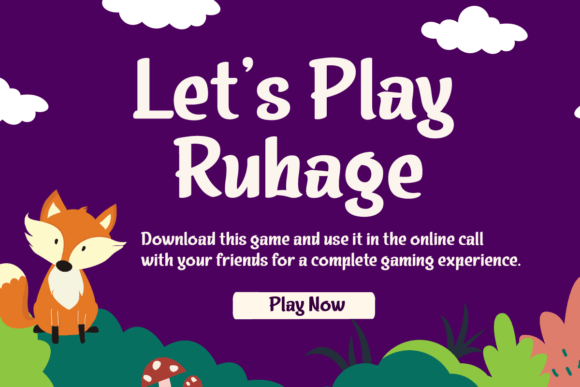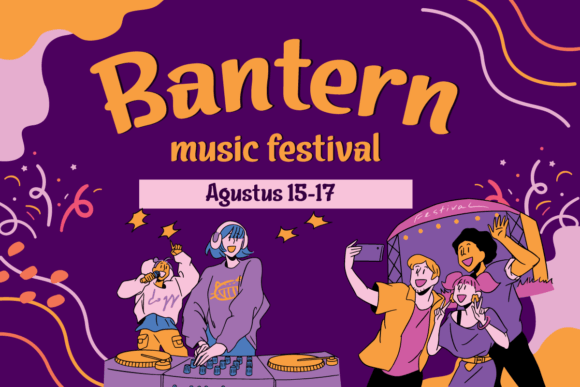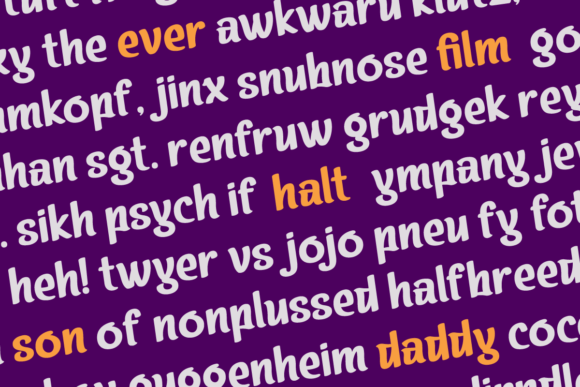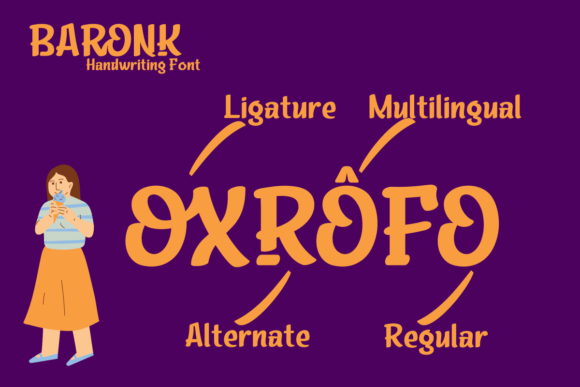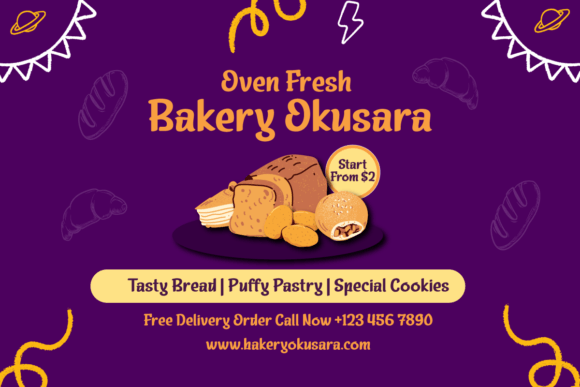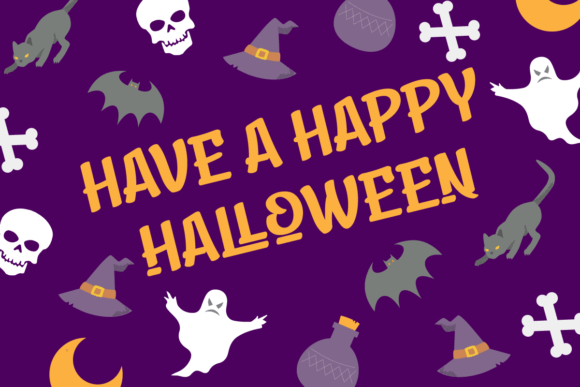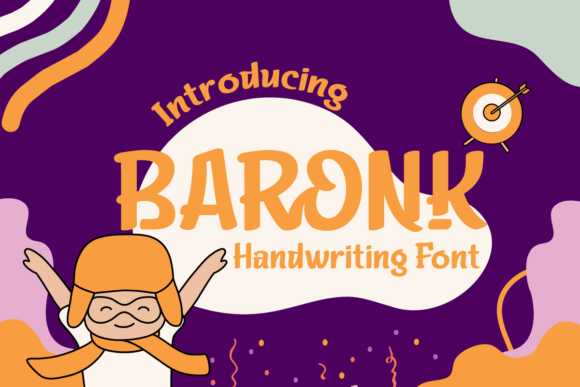
Introducing BARONK Font: The Ultimate Display Typeface for Creative Designs
Are you tired of using the same old fonts for your design projects? Look no further! BARONK Font is here to revolutionize your creative endeavors with its unique and captivating display typeface. This stunning font embodies the essence of authentic handwriting, adding a touch of artistic flair to your designs. With its perfect blend of style and individuality, BARONK is the perfect choice for designers and crafters looking to elevate their projects to the next level.
The Art of Handwritten Typography
BARONK Font is crafted with meticulous attention to detail, making it a true masterpiece of handwritten typography. The font’s fluid ligatures and alternate characters offer creative freedom for crafting distinct compositions that stand out from the crowd. Whether you’re working on invitations, branding materials, or any other design project, BARONK adds a unique charm that is sure to captivate your audience.
Unleash Your Creativity with BARONK
One of the most exciting features of BARONK Font is its versatility. This font transcends language barriers, ensuring seamless communication across cultures. Whether you’re designing for a global audience or a specific niche, BARONK has got you covered. With its extensive character set, you can create stunning designs that resonate with people from all walks of life.
What Sets BARONK Apart
- Authentic Handwriting Style: BARONK Font boasts an authentic handwriting style that adds a personal touch to your designs.
- Fluid Ligatures and Alternate Characters: The font’s fluid ligatures and alternate characters offer creative freedom for crafting unique compositions.
- Multilingual Support: BARONK Font supports multiple languages, making it the perfect choice for global design projects.
- Elegant and Refined: The font’s elegant and refined aesthetic makes it perfect for high-end designs, such as luxury branding and wedding invitations.
Why Choose BARONK Font?
BARONK Font is more than just a typeface – it’s an artistic tool that empowers you to create stunning designs. Here are just a few reasons why you should choose BARONK for your next project:
- Add a Personal Touch: BARONK Font adds a personal touch to your designs, making them more relatable and engaging.
- Stand Out from the Crowd: The font’s unique style and character set ensure that your designs stand out from the crowd.